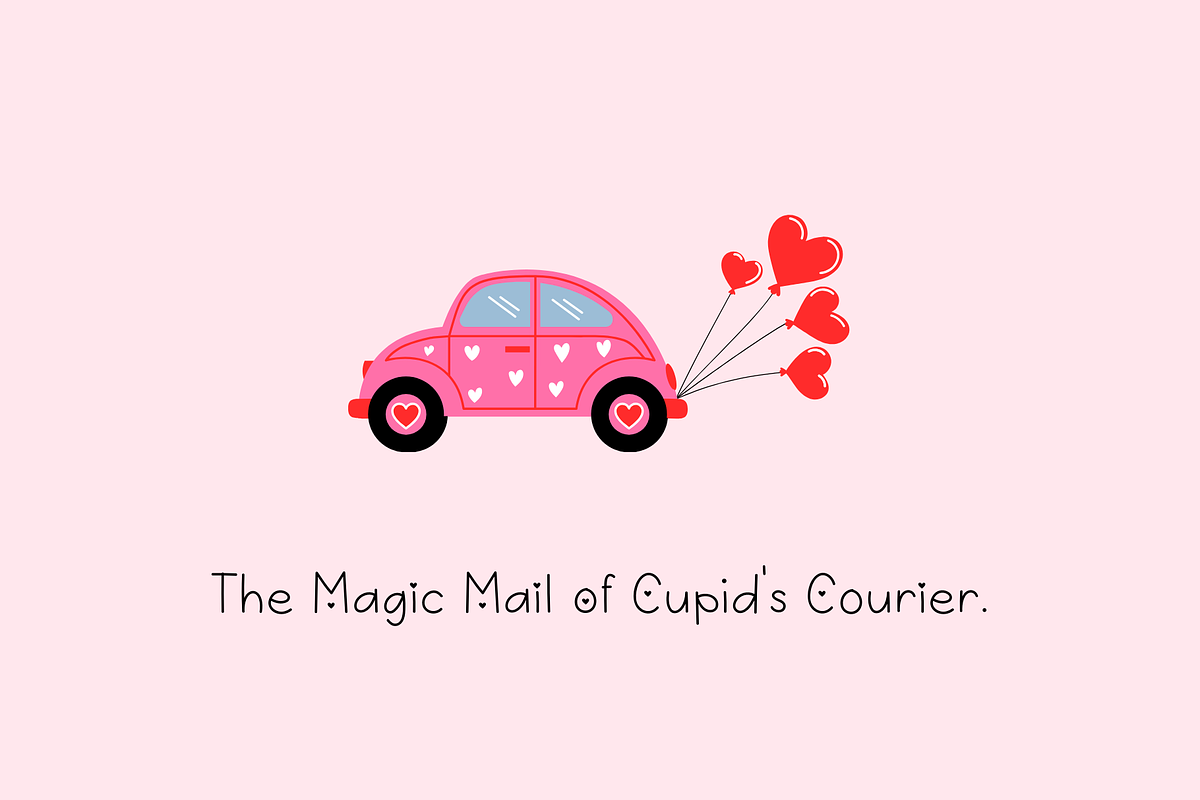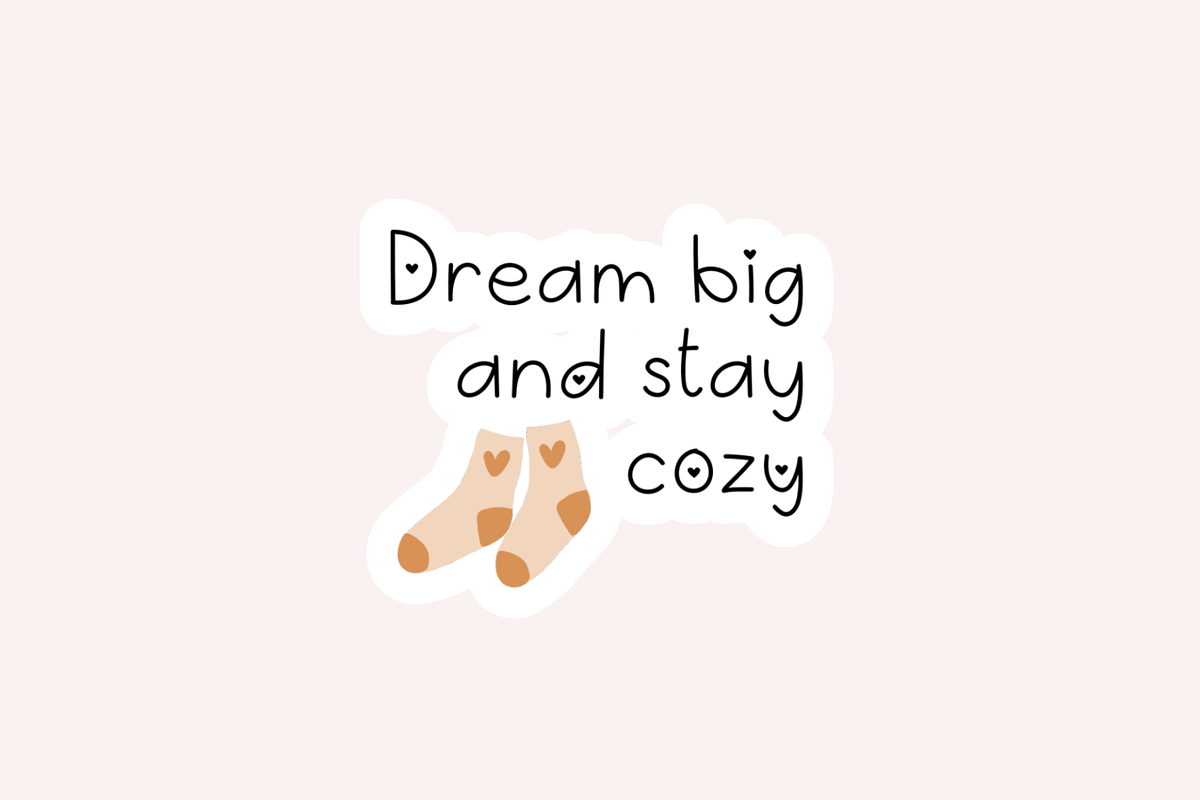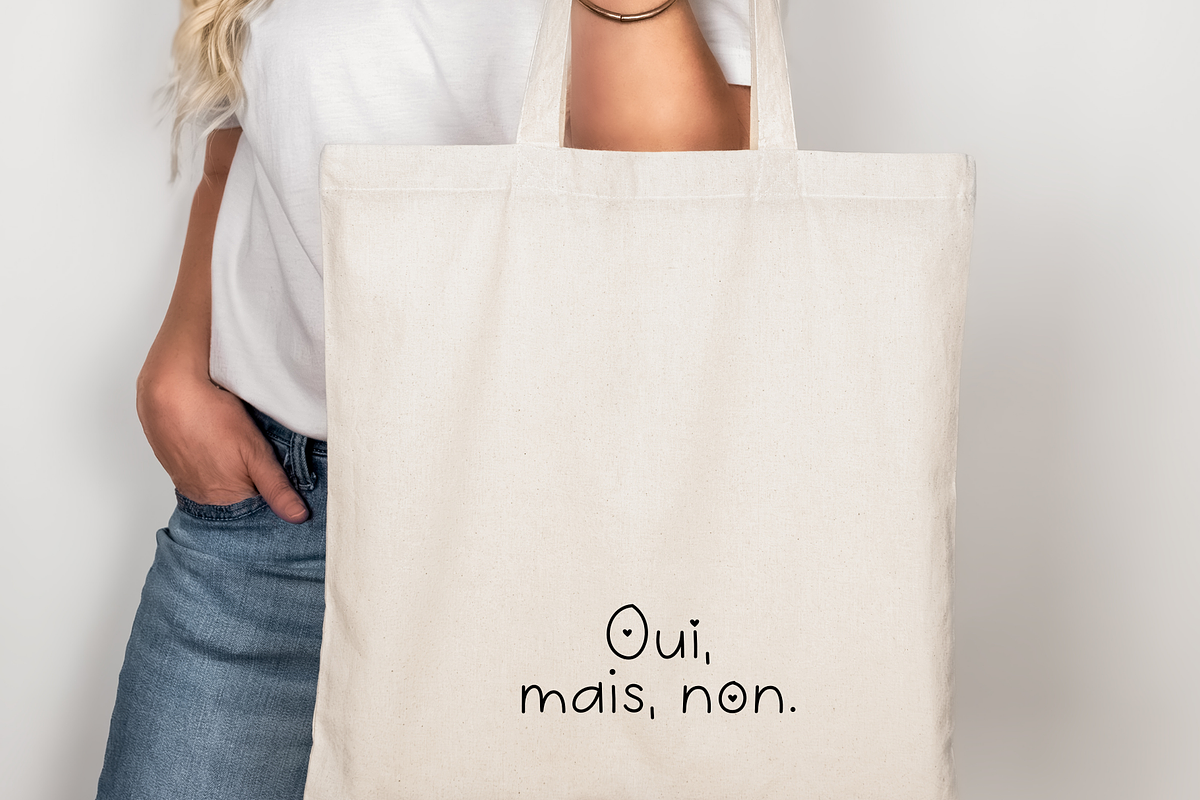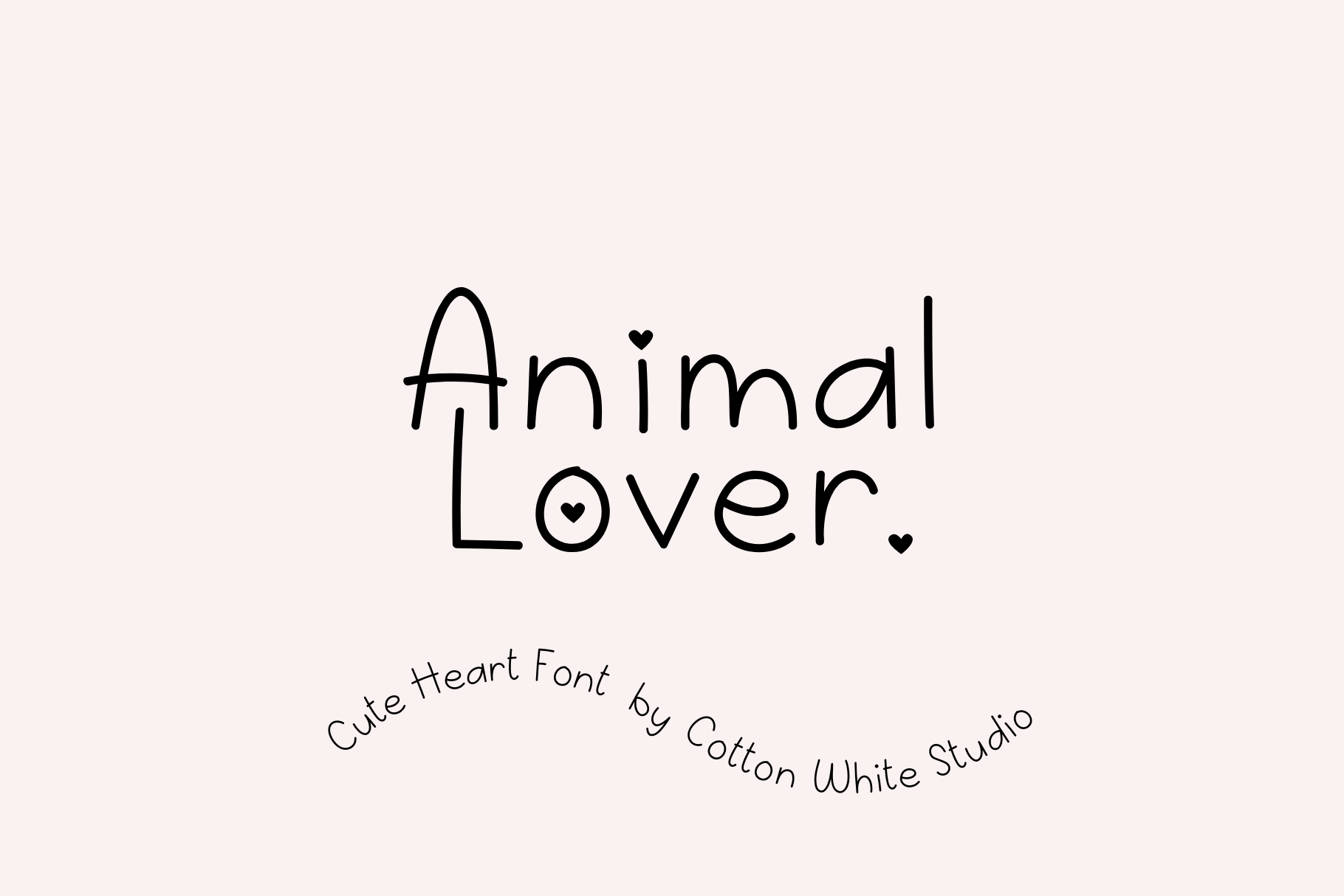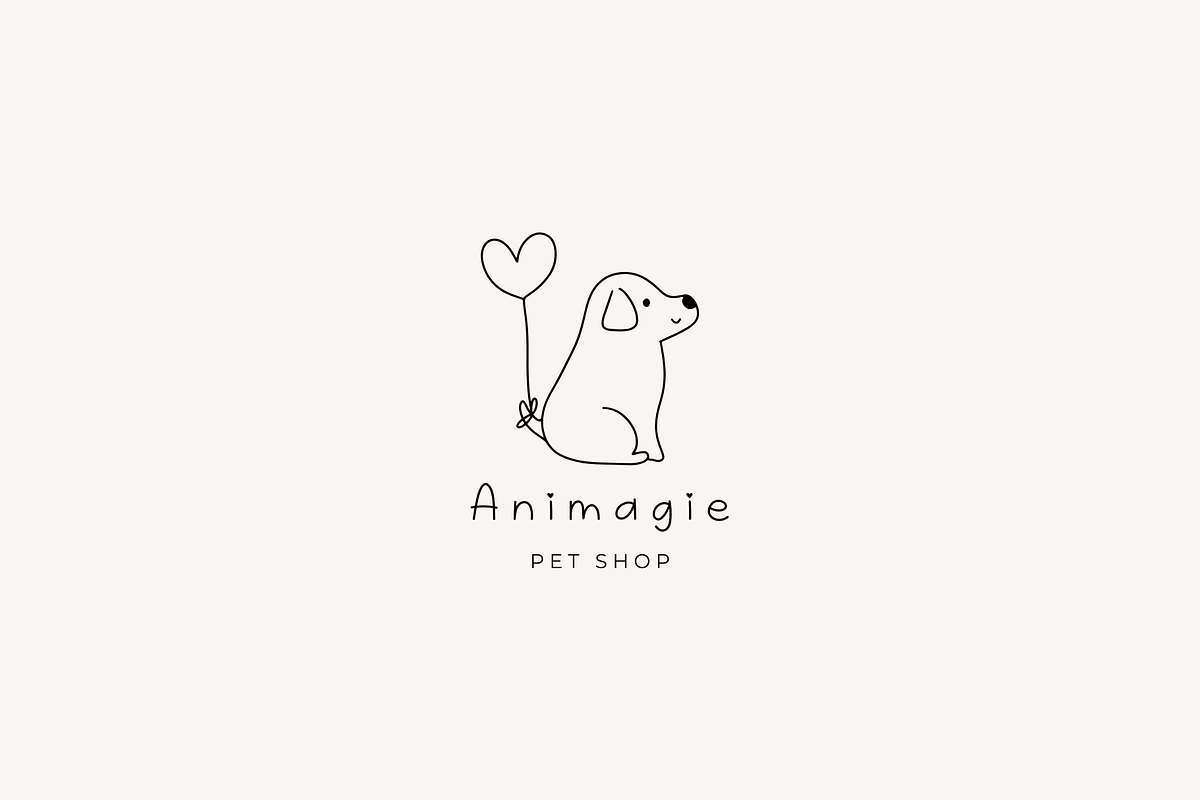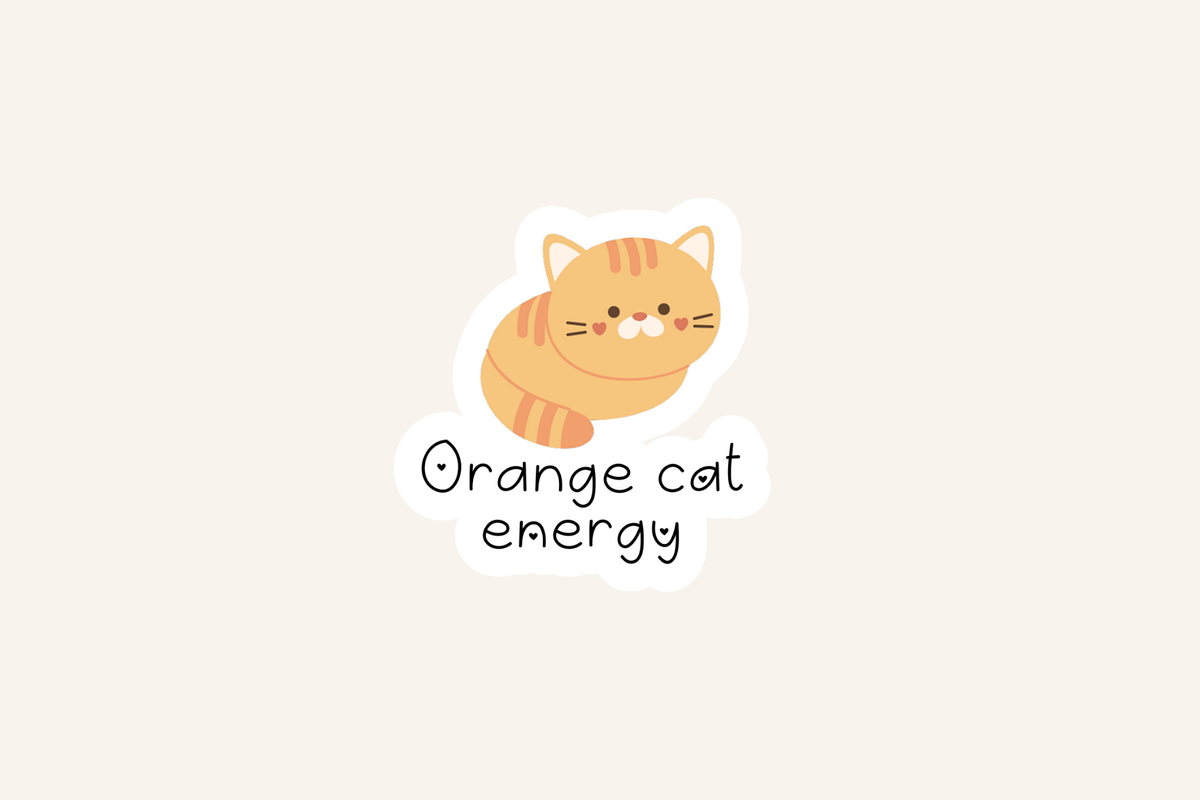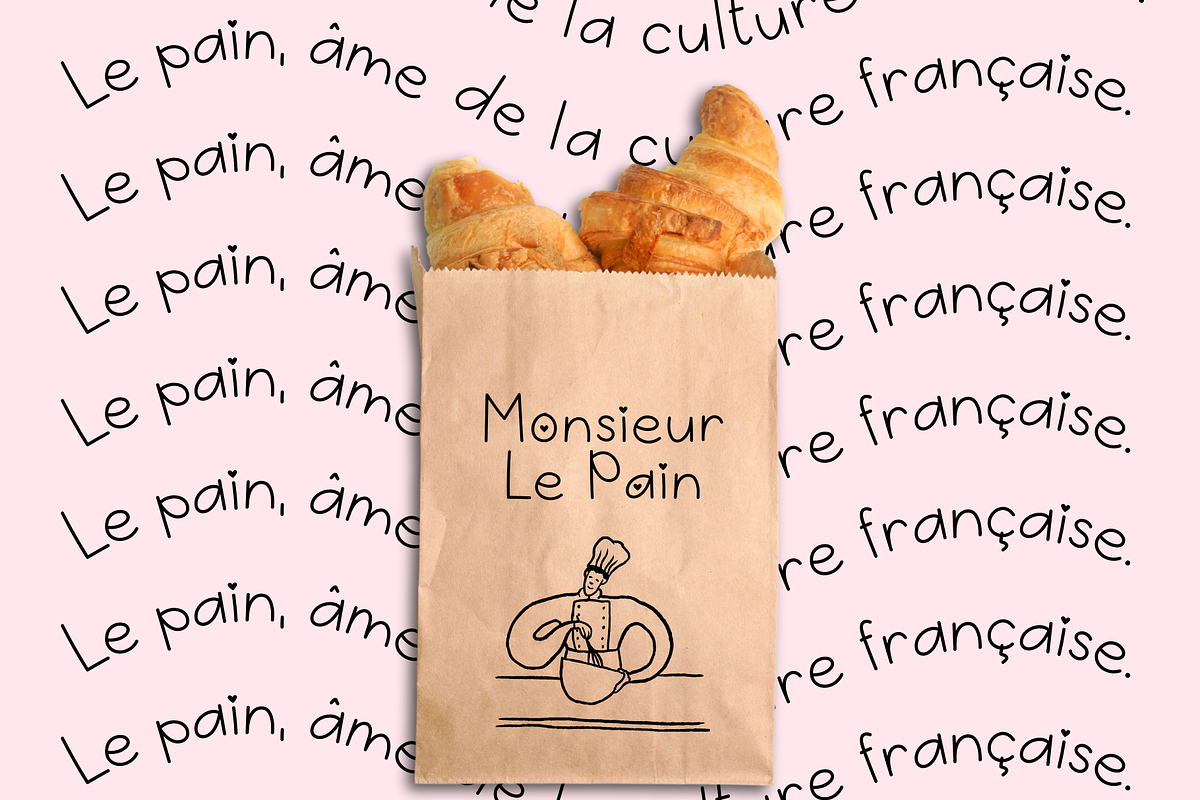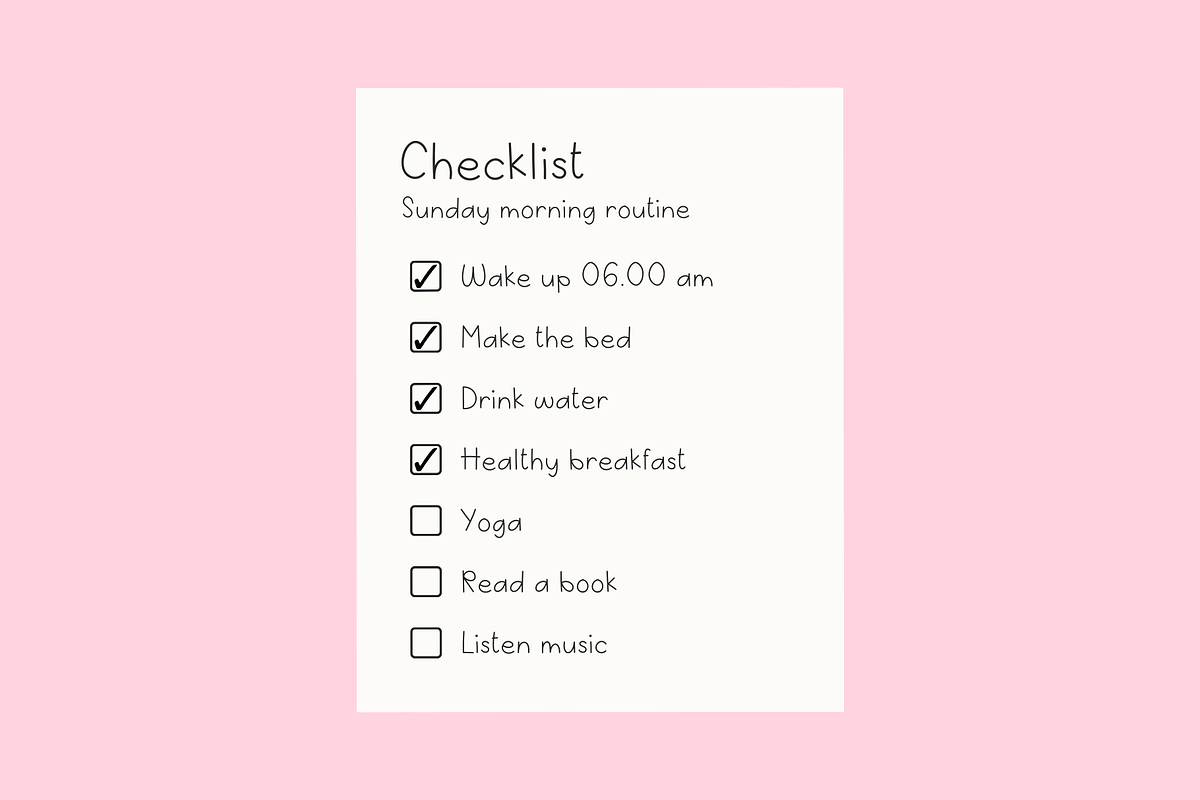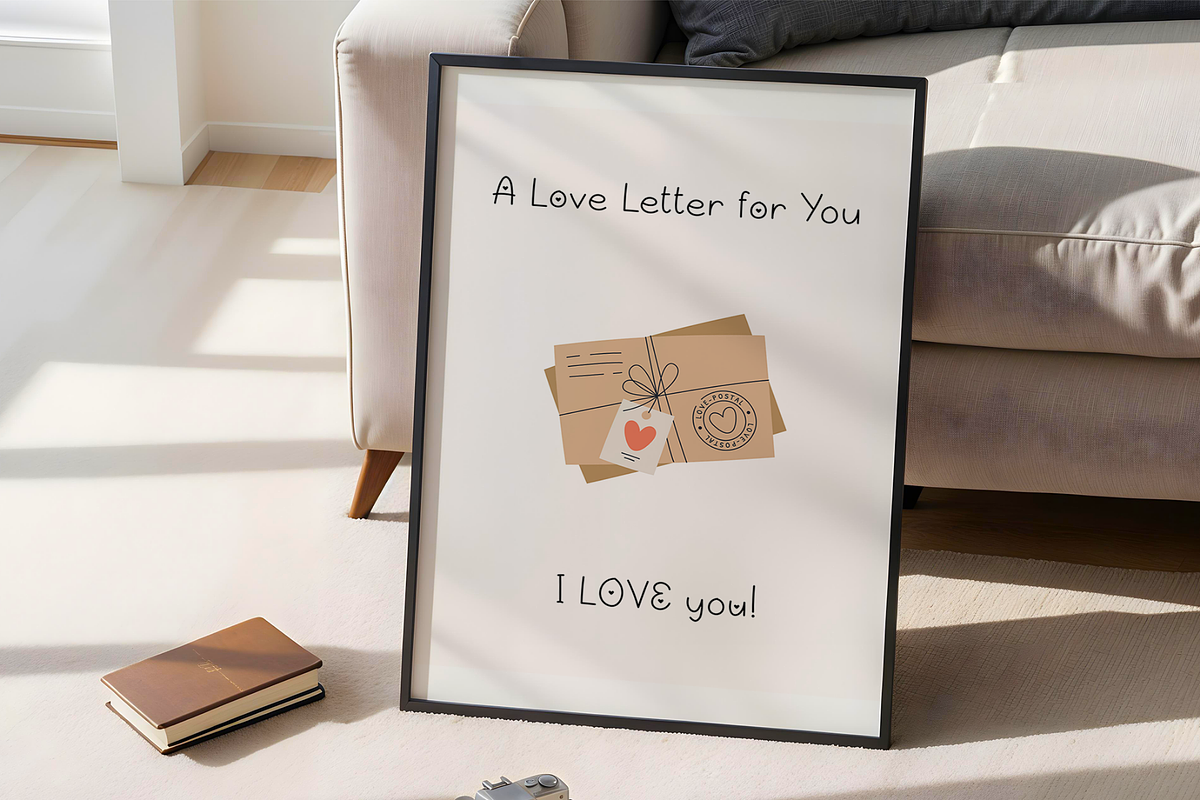
Animal Lover Cute Heart Font
Cute font with heart decorated alternatives. Perfect for wedding invitations, romantic cards, social media posts, logo designs, personalised gifts, and more! ❤️